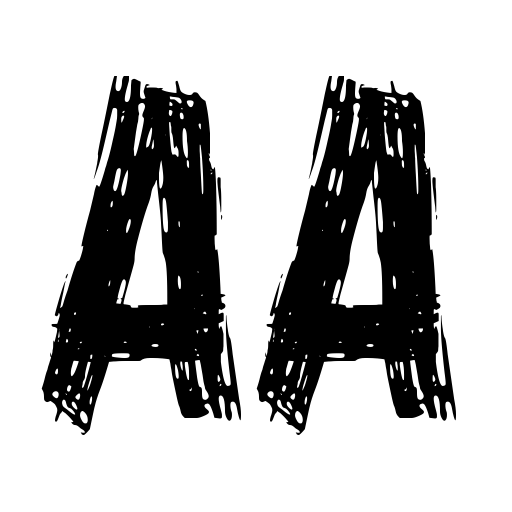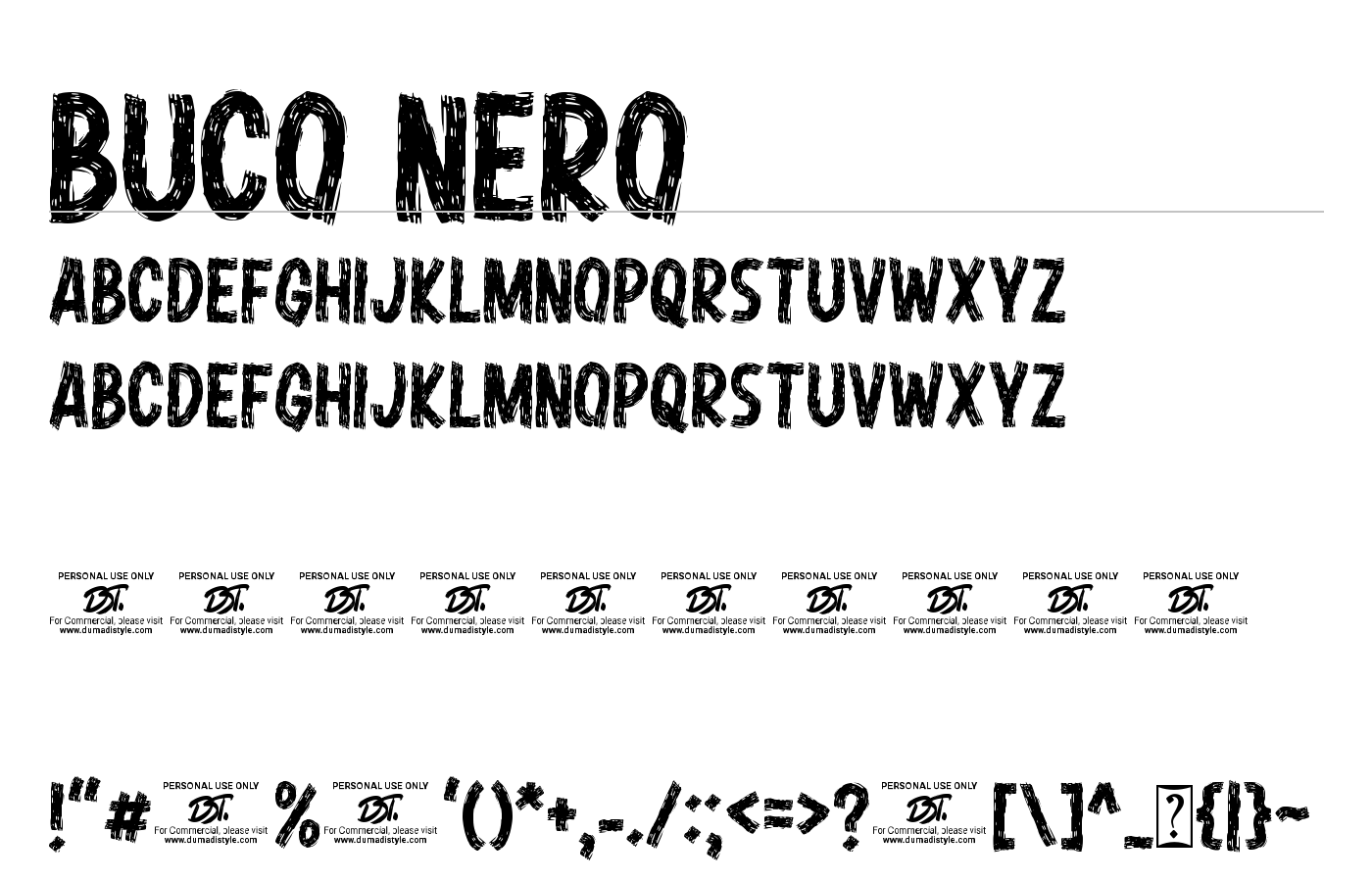
Buco Nero is a bold, hand-drawn sans serif font with a rough, textured appearance that gives it an edgy and dynamic feel. Its tall, narrow letterforms and uneven stroke texture make it perfect for projects that want to convey energy and creativity, such as posters, headlines, or urban-themed designs. This font’s distinctive, gritty style works well for brands seeking a raw, artistic vibe with strong visual impact.
Buco Nero Font
About Buco Nero Font
| Font family | Buco Nero Font |
| Designer | Toni Dzulham |